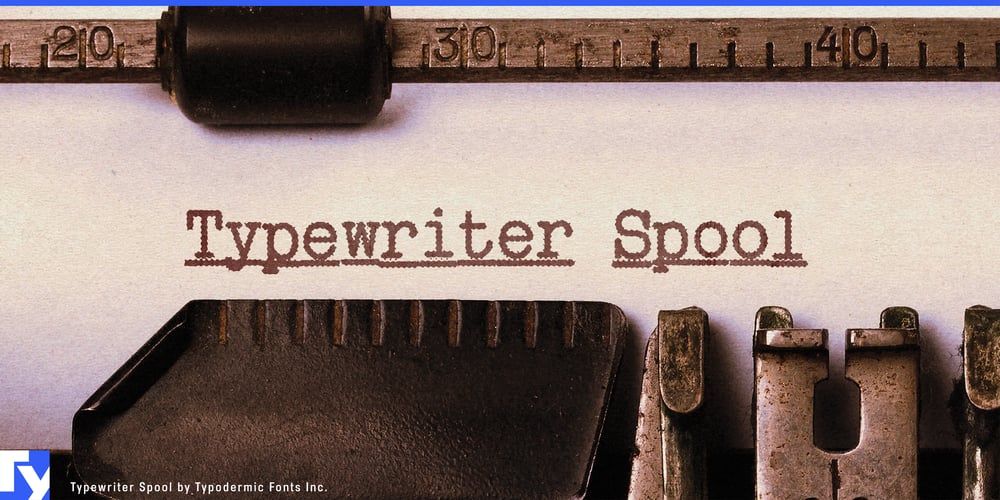
Typewriter Spool
Typewriter Spool font
Typewriter Spool Font Family was designed by Ray Larabie and published by Typodermic. Typewriter Spool contains 122 styles and family package options. Typewriter Spool: a font collection that awakens the senses with the nostalgic allure of vintage typewriters. Like the intoxicating aroma of fresh ink on crisp paper, this typeface family infuses your designs with the unmistakable essence of literary craftsmanship.Inspired by the iconic Underwood No. 5, Typewriter Spool doesn’t just mimic the look of typewritten text—it captures the very soul of the writing experience. The gentle clack of keys, the satisfying ding of the carriage return, the subtle vibration of metal striking paper—all these sensations are distilled into 122 meticulously crafted fonts. At its core, Typewriter Spool CLN offers the precision of a well-maintained machine. Its seven weights, three widths, and crisp underlines evoke the tactile pleasure of fingers dancing across polished keys. Each letter is a testament to the clarity of thought, as clean and sharp as the moment it’s struck onto the page.For those who crave the imperfect beauty of a well-loved typewriter, Typewriter Spool SFT delivers. Its six weights and three widths, coupled with a clever shuffle of alphanumeric characters, recreate the slight misalignments that give typewritten text its charming personality. It’s the typographic equivalent of the comforting scent of old books and the gentle whisper of turning pages. Typewriter Spool XRX pushes boundaries, much like the creative minds who pounded away at their typewriters late into the night. This font family captures the gritty texture of text that’s been faxed and photocopied repeatedly, each generation adding its own layer of character. It’s the visual representation of ideas spreading, evolving, and taking on a life of their own.For the purists, Typewriter Spool RUF offers a sensory feast. Its worn ink ribbon texture and clunky misalignment transport you to a world of clickety-clacks and the earthy scent of metal and oil. Running your eyes over text set in RUF is like running your fingers over the raised impressions on the back of a typewritten page—deeply satisfying and intimately connected to the act of creation. Typewriter Spool doesn’t just speak English—it’s fluent in the language of creativity across cultures. Supporting a vast array of writing systems from Latin to Cyrillic, Greek to Vietnamese, this typeface family ensures your words resonate with the same vintage charm, regardless of the language.Are you ready to infuse your designs with the rich, sensory experience of classic typewriters? Typewriter Spool awaits, its keys primed to imprint your ideas with timeless elegance. Get it today and let your typography sing with the rhythm of a bygone era, where every letter struck was a step closer to literary greatness. With Typewriter Spool, you’re invoking the muse of countless writers who changed the world, one keystroke at a time.